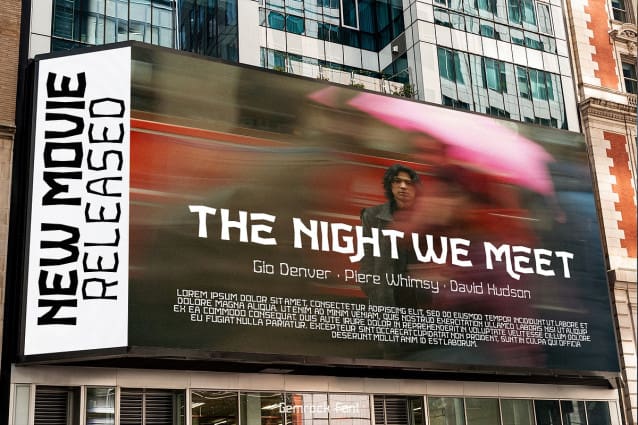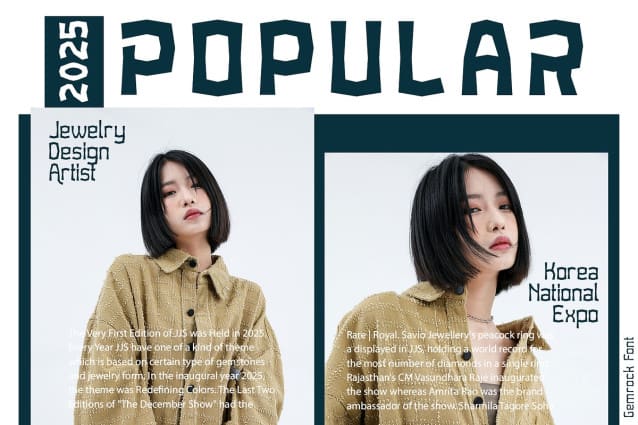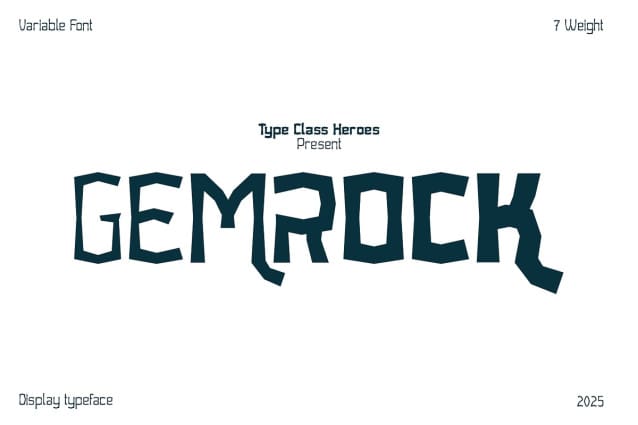
Gemrock Font
Gemrock Font is a sans serif with strong lines contrasting high end fashion and cultural environments comes with various width and weight that you can explore and combine. Use this font family for any branding, product packaging, invitation, quotes, label, poster, logo, headline etc.